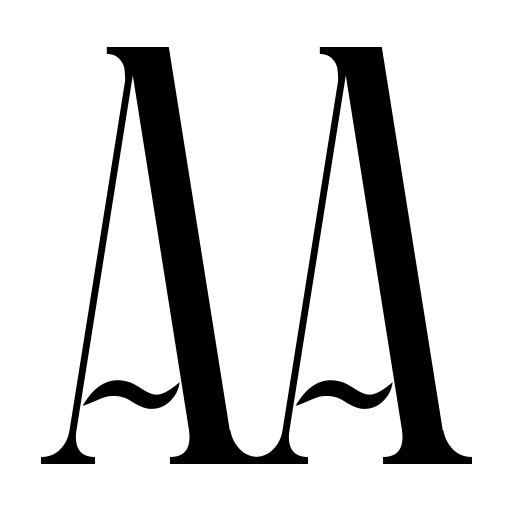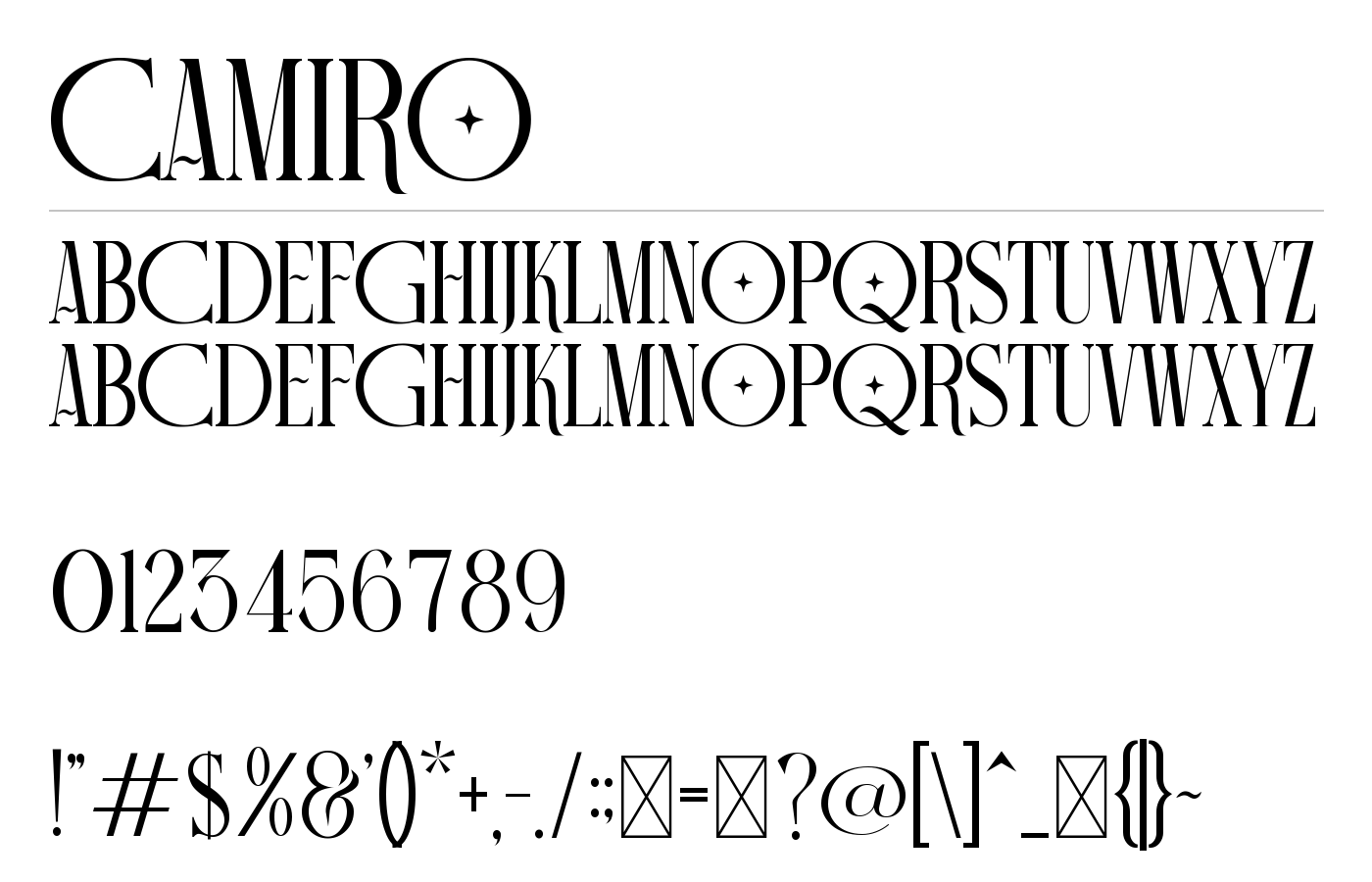
Camiro is a stylish serif font with a slim, tall structure and elegant high contrast between thick and thin strokes. Its unique decorative details, like the star within the "O" and the fine serif brackets, give it a refined, vintage yet modern feel perfect for luxury branding, fashion editorials, and sophisticated logos. This font works best in large headings or display uses where its distinctive character can truly shine.
Camiro Font